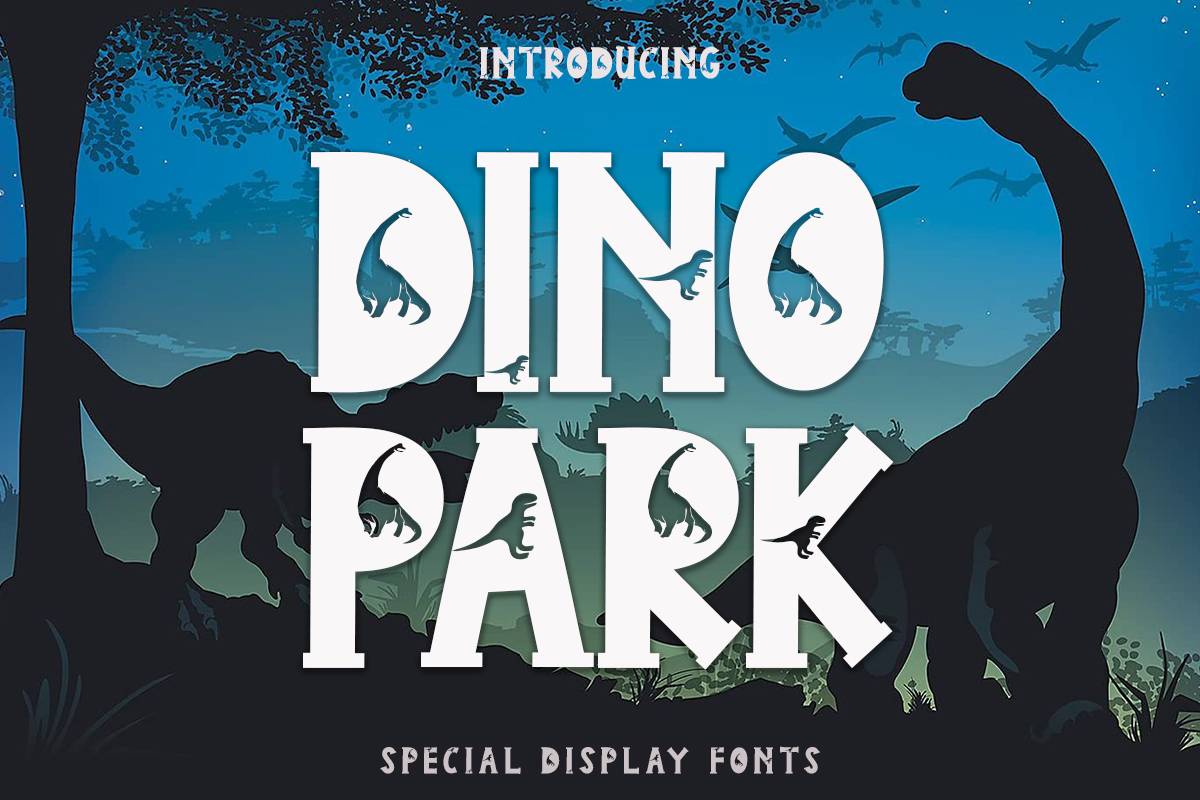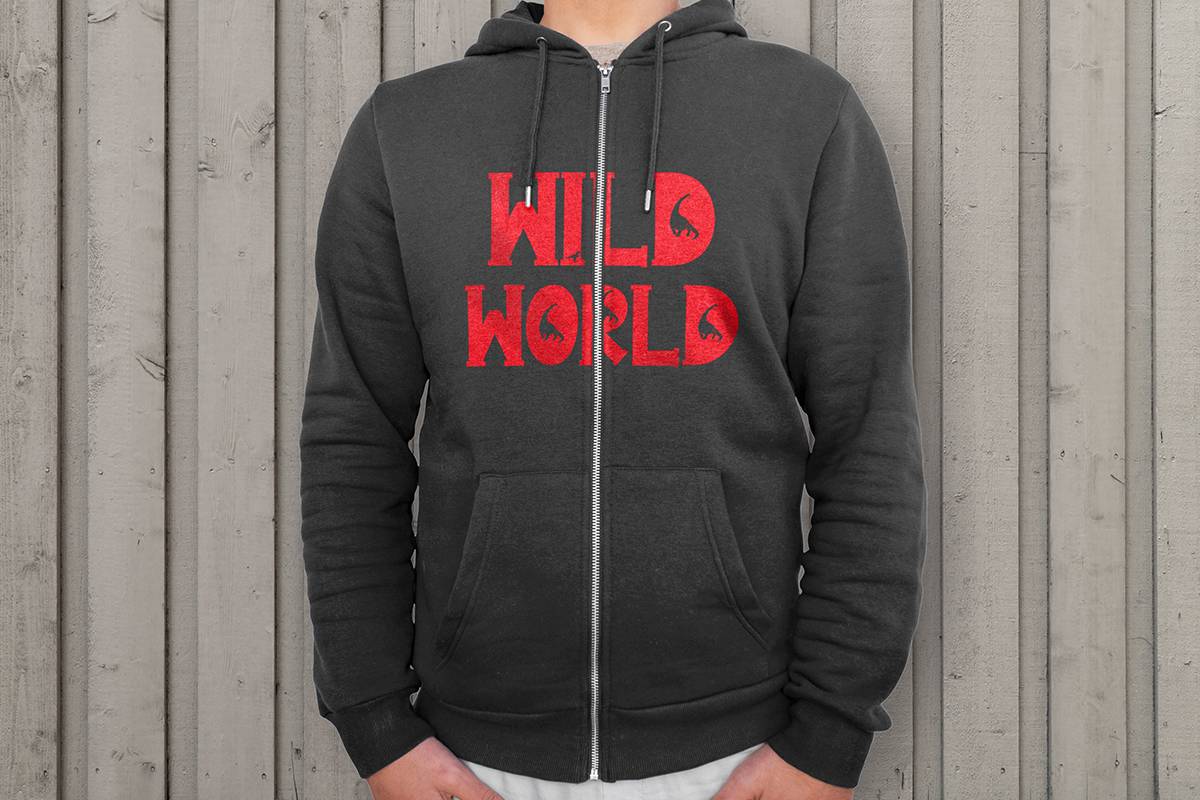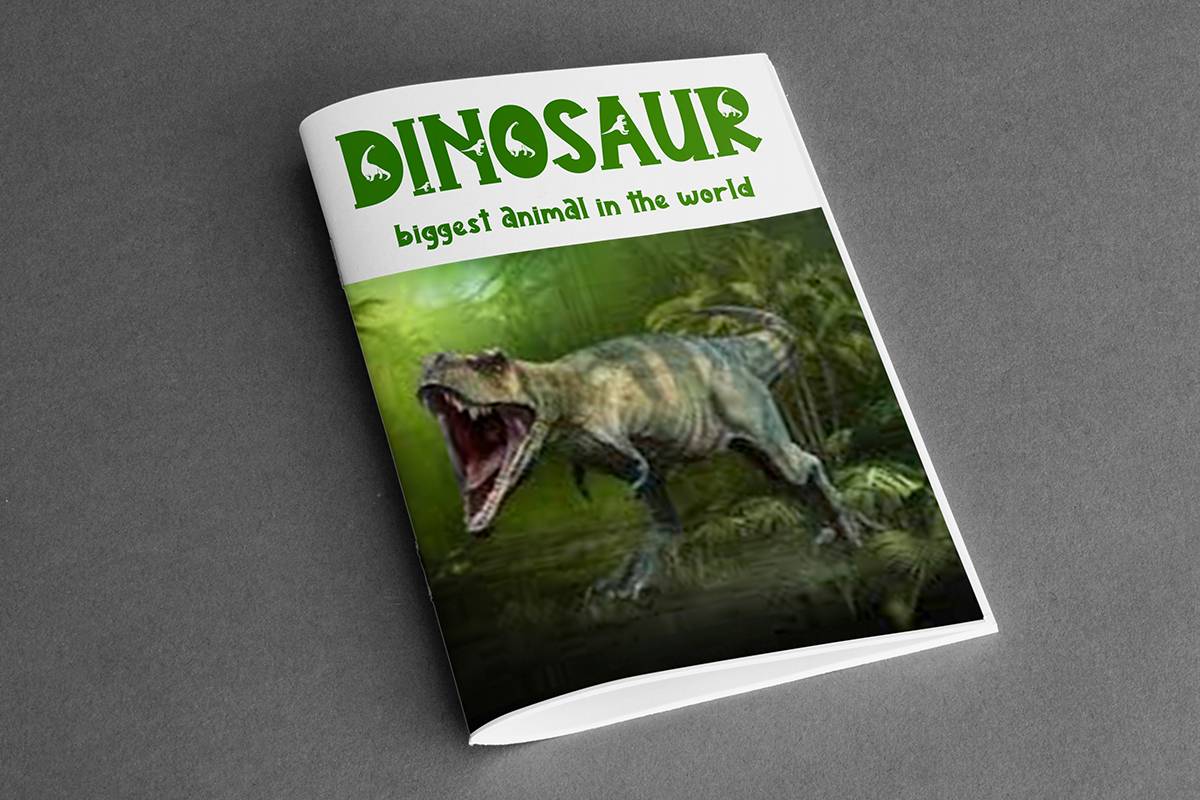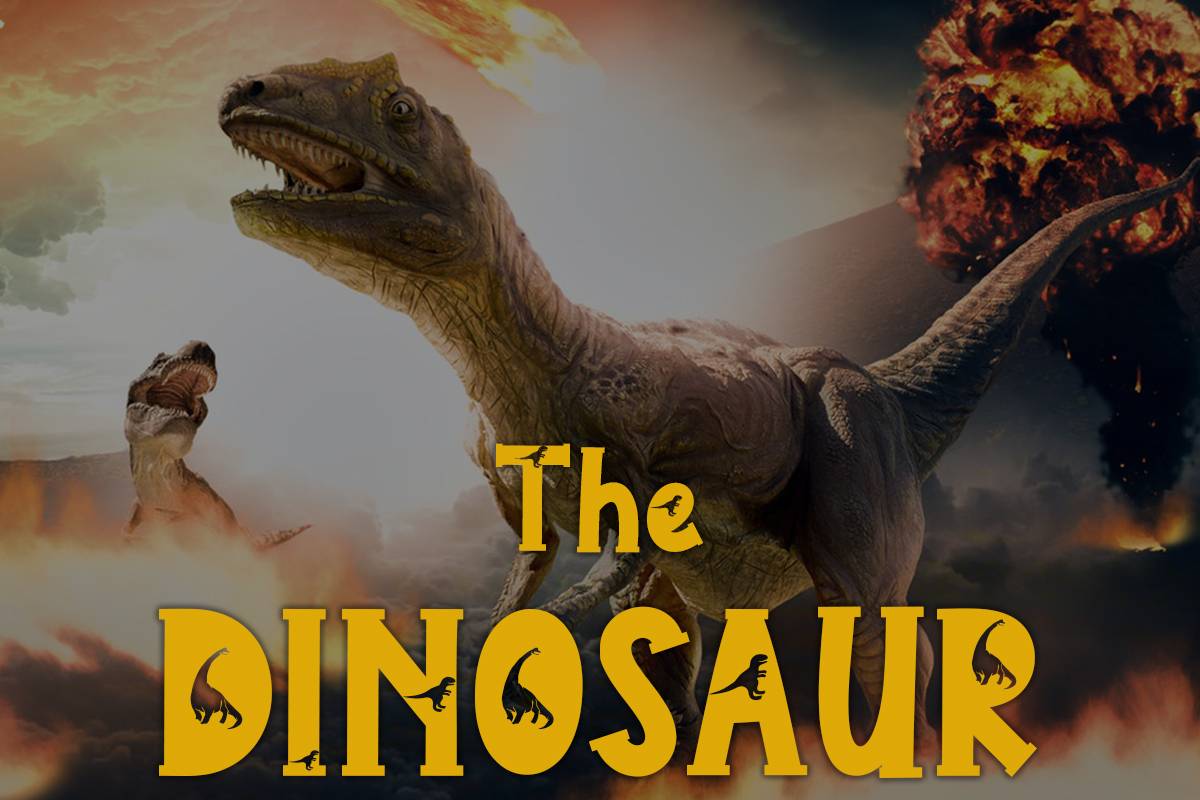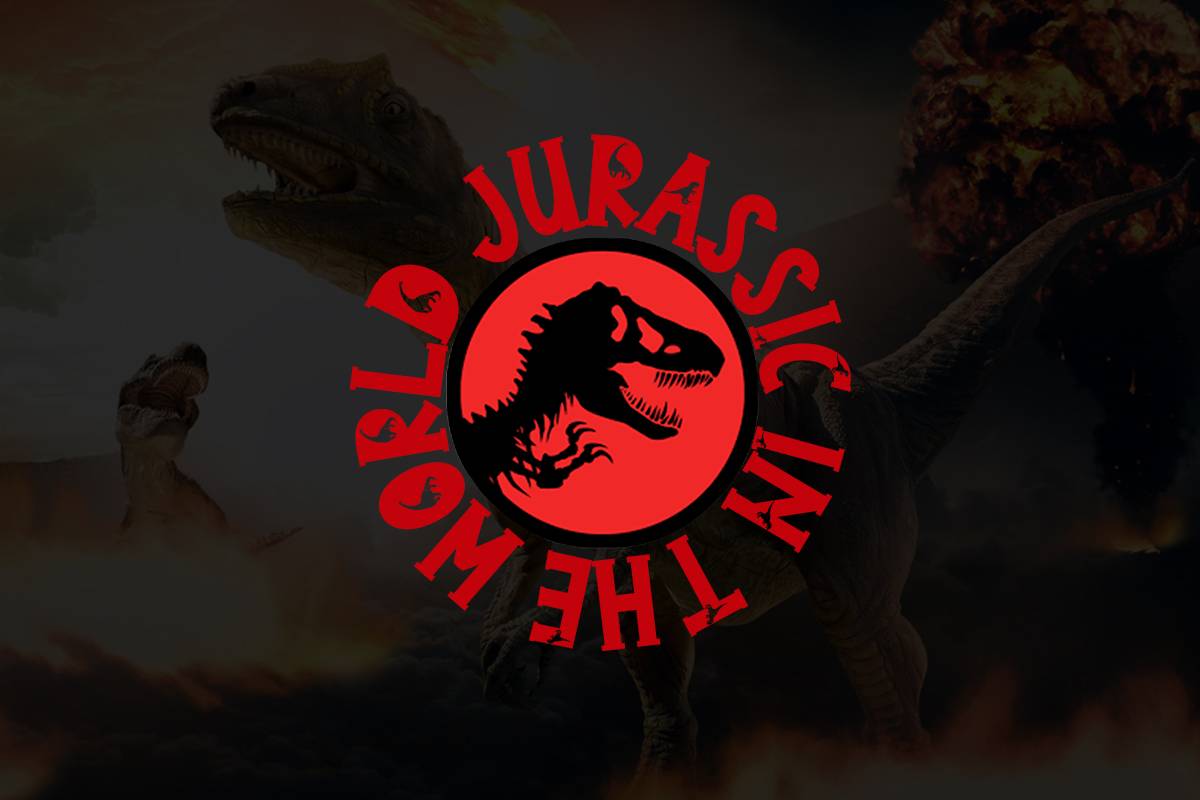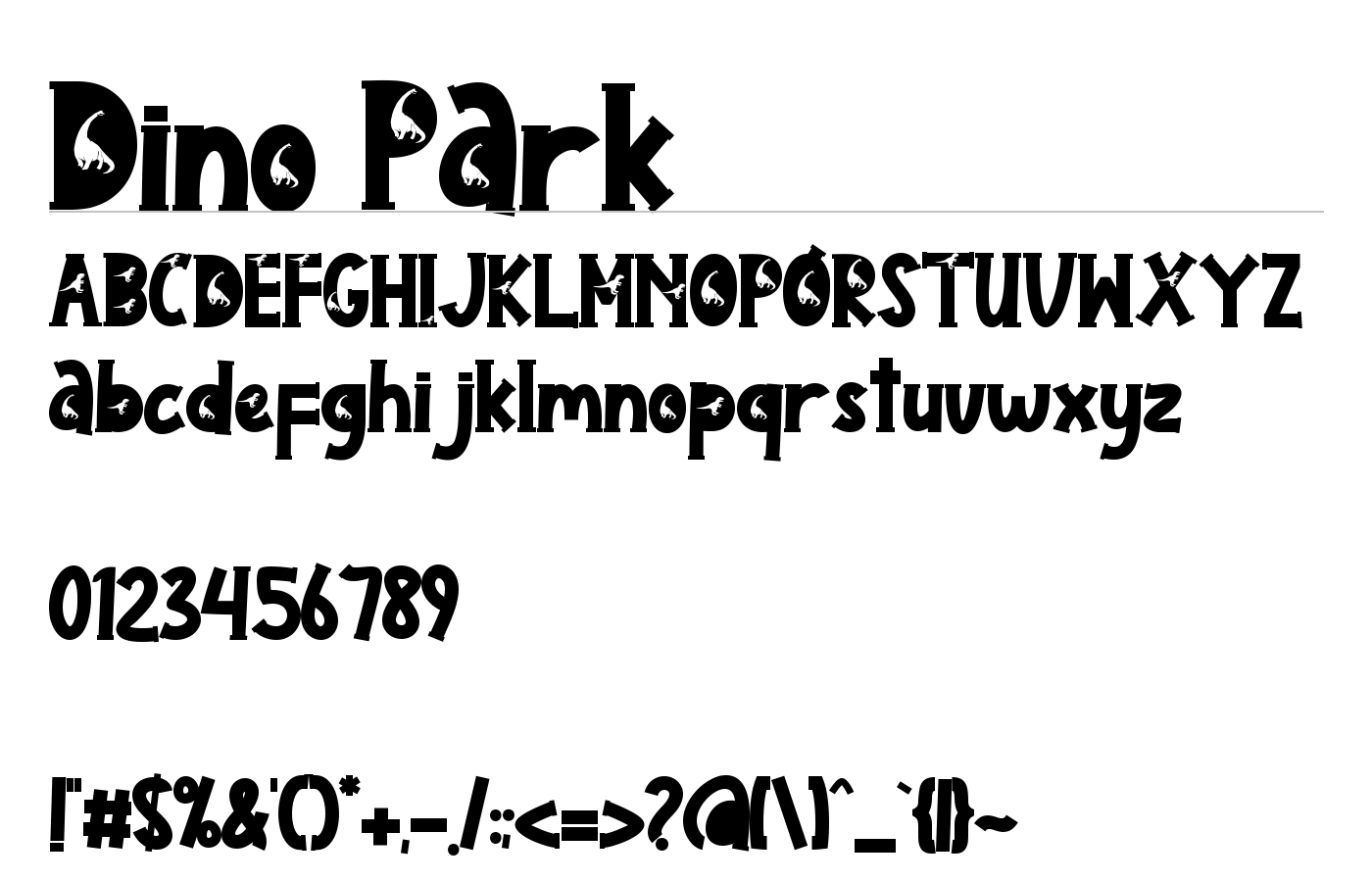
Dino Park is a playful, bold serif font with a whimsical dinosaur theme, featuring strong, blocky letterforms embellished with small dinosaur silhouettes inside some characters. Its sturdy, uneven strokes and lively details create a fun, adventurous vibe perfect for children's books, themed attractions, or playful branding that wants to capture a prehistoric spirit. This font works best in headlines and logos where its unique character and charming personality can really stand out.